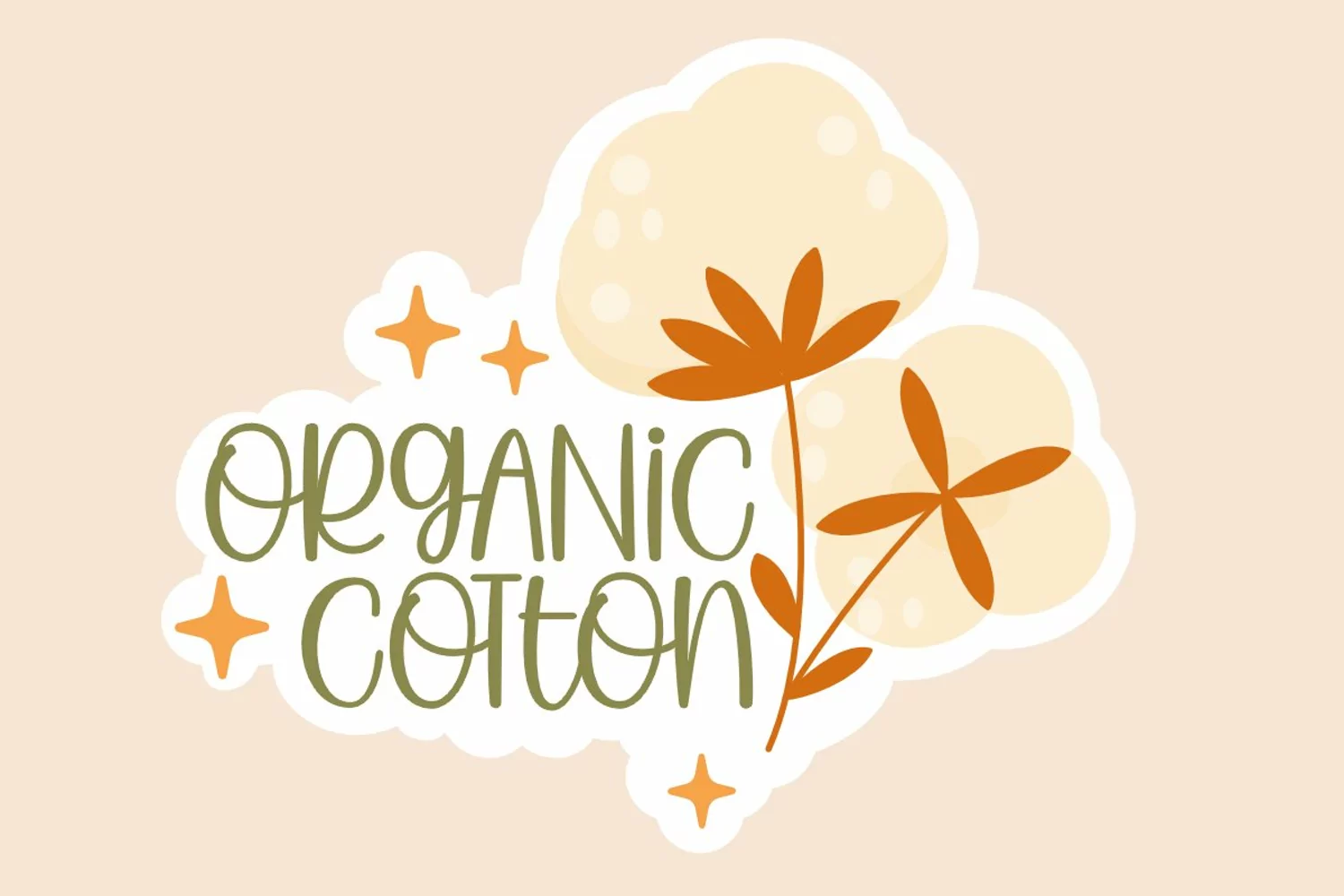
Introducing " Sunkish Orange "
Sunkish Orange a Quirky Display Font
You Can Mix And Match for Your Awesome Project
This fonts is ideal for crafting, branding and decorate your any project. This fonts are perfect for wedding invitation or your blog. Also with their help, you can create a logo or beautiful frame for your home. Or just use for your business, book covers, stationery, marketing, magazines and more.